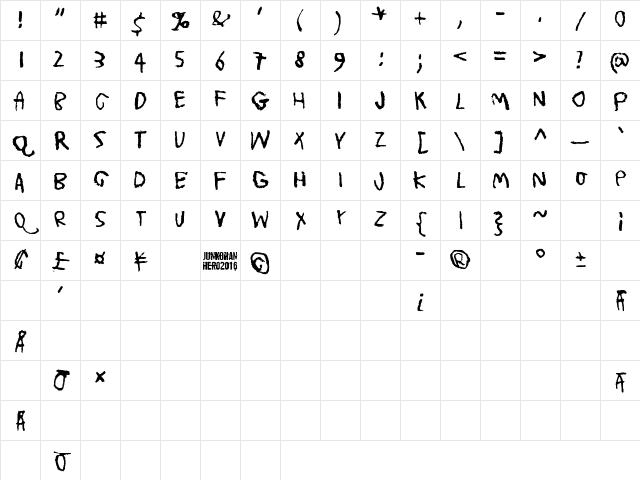
Trash! More trash! Regular
Design Context for Trash! More trash!
Trash! More trash! is a composed and adaptable typeface that performs quietly and consistently across a wide range of design contexts.